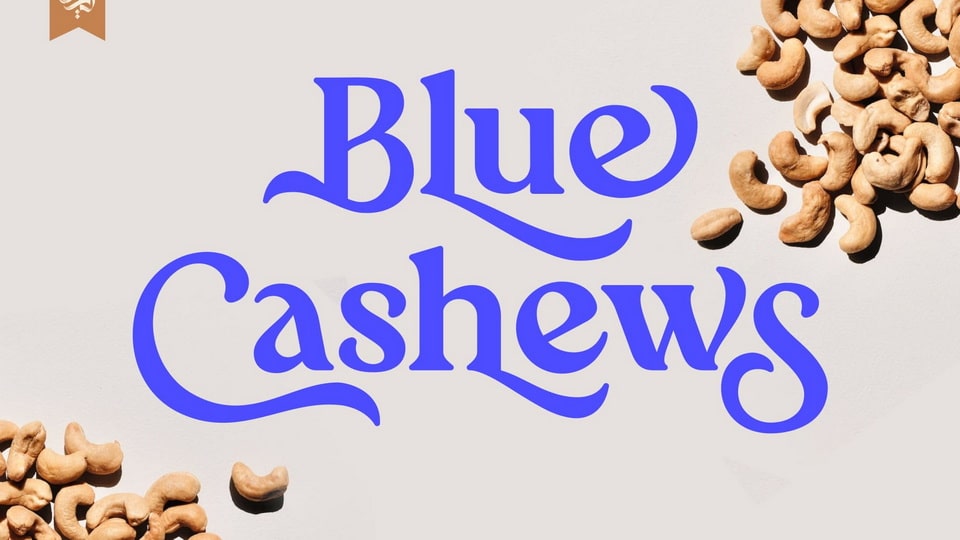
Download Blue Cashews font, a serif typeface inspired by the curved shape of a cashew with a blunt tip. Blue Cashews font gives the impression so warm, sweet, fresh, crunchy and full of love!
Designer: Aluyeah Studio